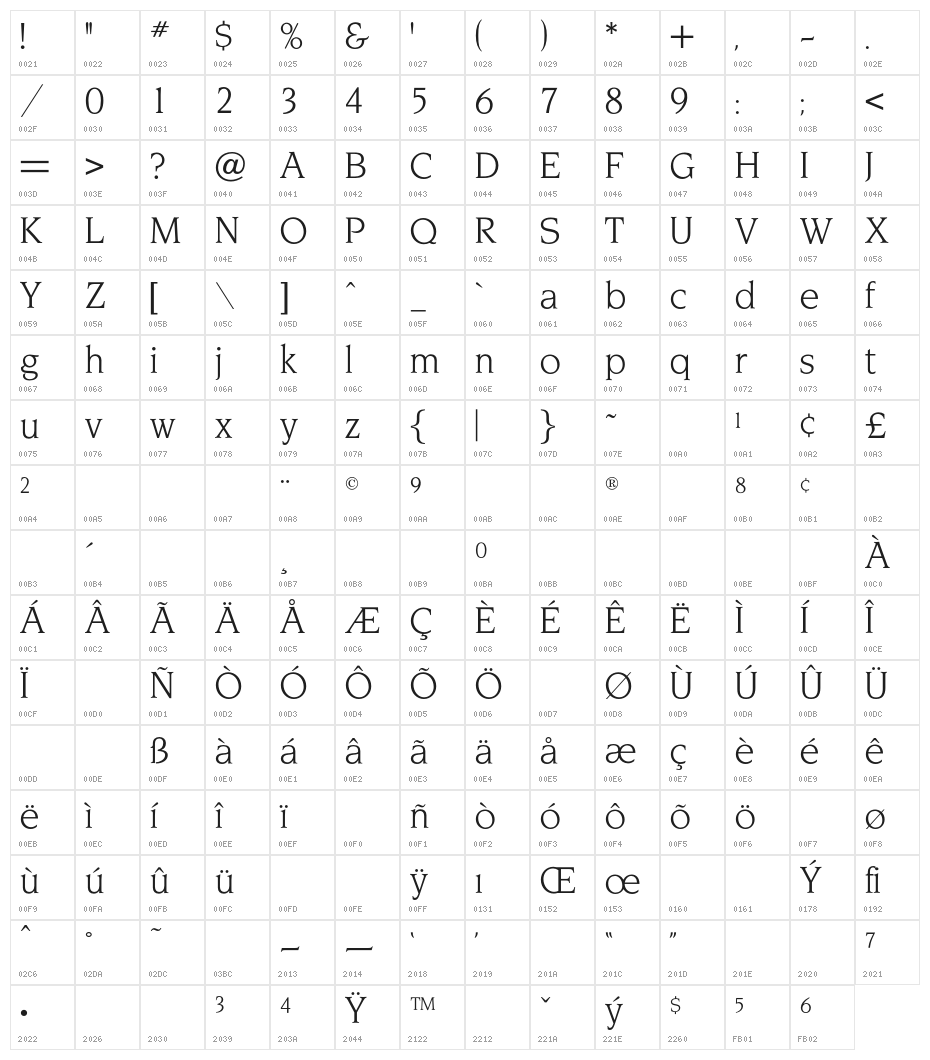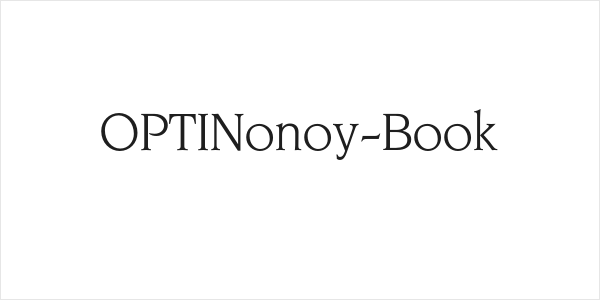
OPTINonoy-Book Font
OPTINonoy-Book Description
This font exhibits a classic serif style with elegant, well-defined strokes and a balanced structure. The uppercase letters are bold and commanding, while the lowercase letters maintain a refined and approachable appearance. The numerals are clear and distinct, making them suitable for both formal and informal settings. Special characters are crafted with precision, adding to the font's versatility. The overall design is timeless, making it suitable for a variety of applications.
| Proposed Projects | Ideal for editorial design, book covers, formal invitations, and branding materials. |